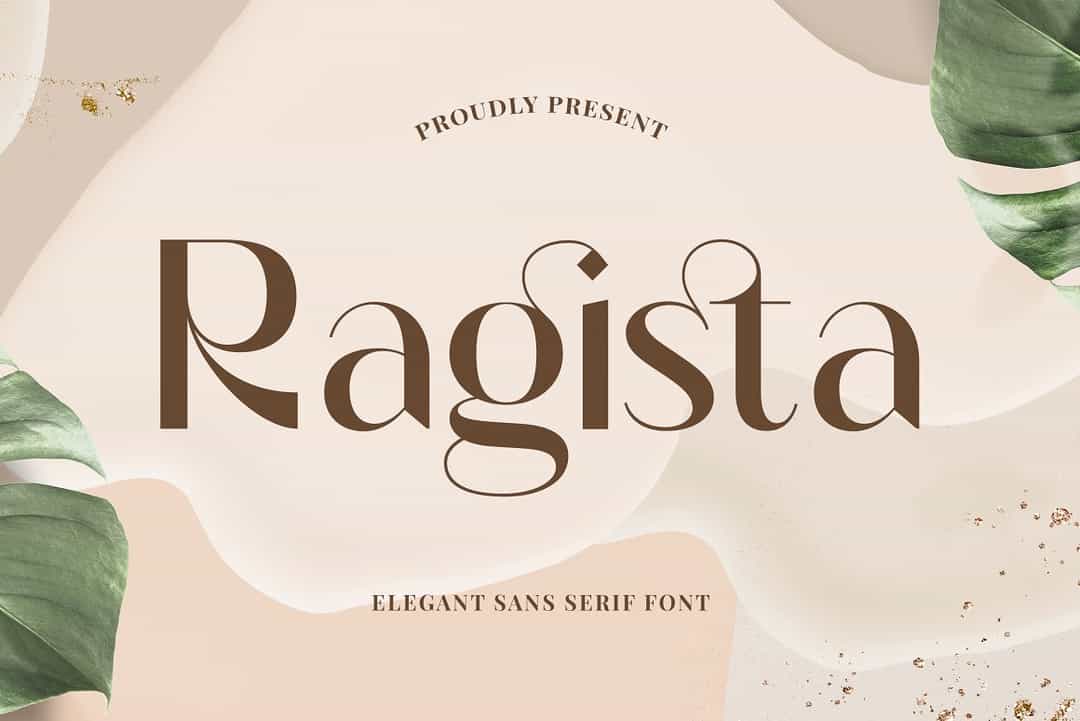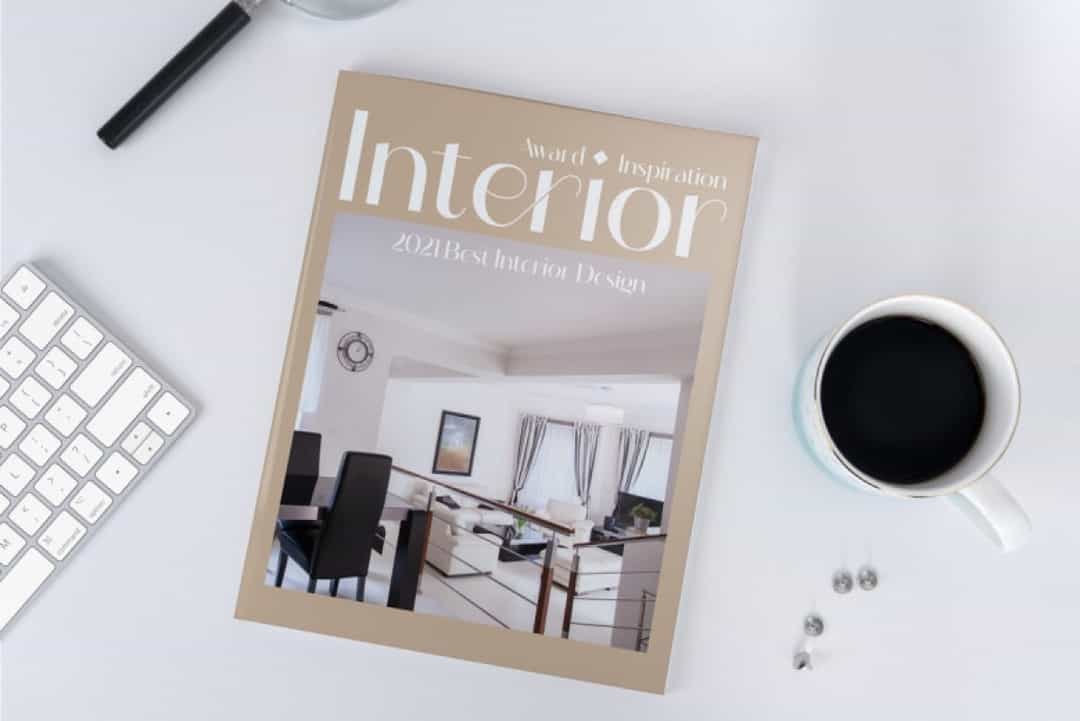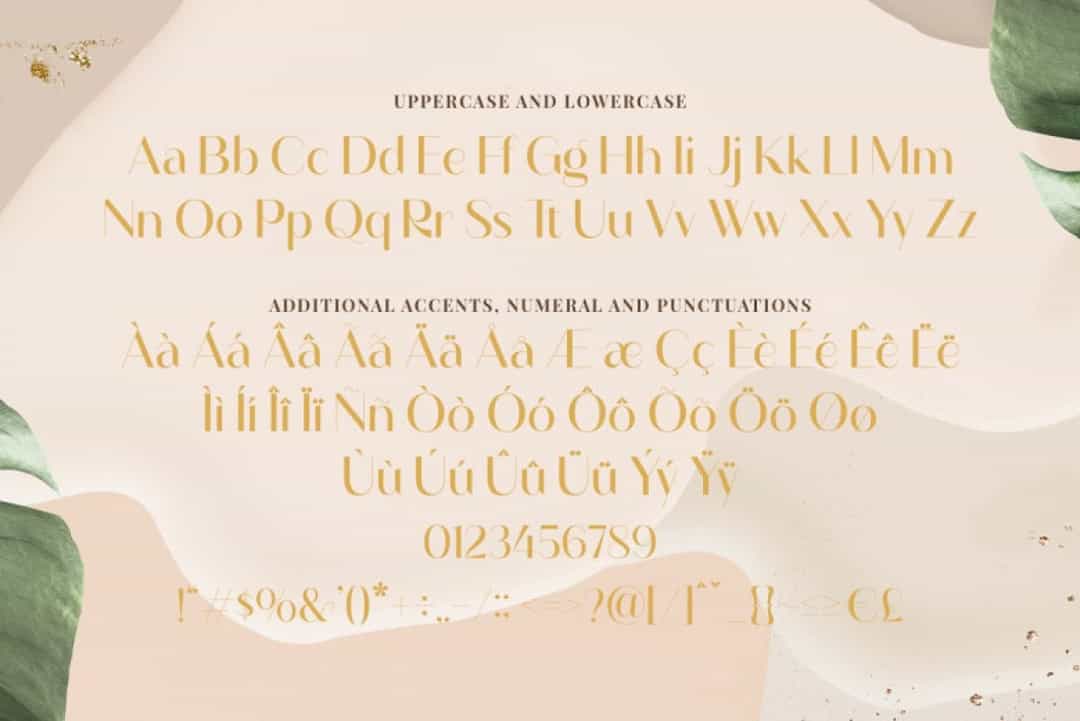
Ragista is a unique serif-free typeface which uses ligatures to connect letters effortlessly, adding a distinct flair to logos with wordmarks monograms pull quotes or monograms. Ragista includes 32 and six alternative ligatures plus punctuation and numbers; its use can even be switched off when writing regular text.